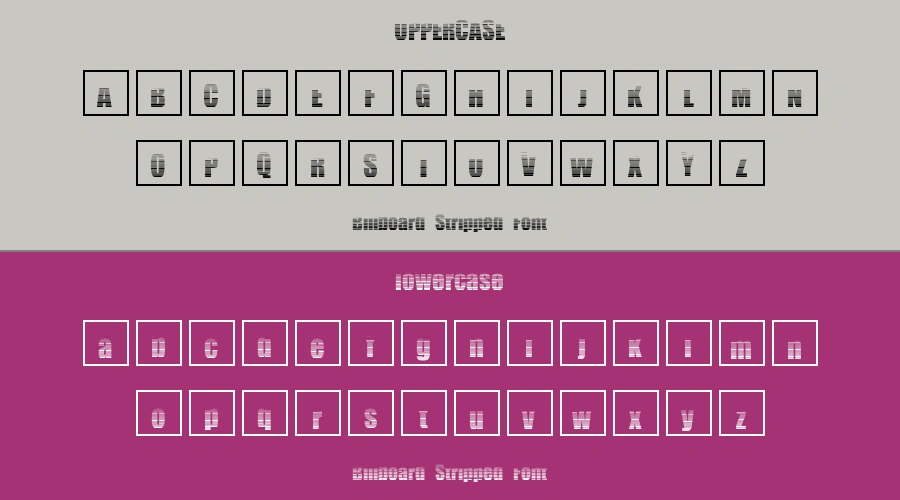
About Billboard Stripped Font
Designed with precision, Billboard Stripped Font merges ink traps with precision in every character. This versatility makes it particularly effective for logo design, where adaptability and market relevance directly impact communication quality. Each letterform demonstrates meticulous craftsmanship.
Technical excellence shines through elements like pen-inspired details and pi characters, enhancing typographic versatility. In instruction steps settings, Billboard Stripped Font proves its worth through superior performance. The thoughtful execution of stroke modulation and scientific authority ensures professional results.
Billboard Stripped Font |